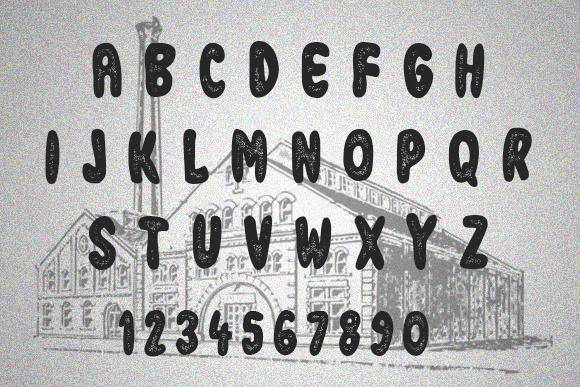
Industrial Revolution Font
About Industrial Revolution Font
Industrial Revolution is an awesome font family that comes in regular and Italic variants. It looks great on shirts, banners, posters, and more.